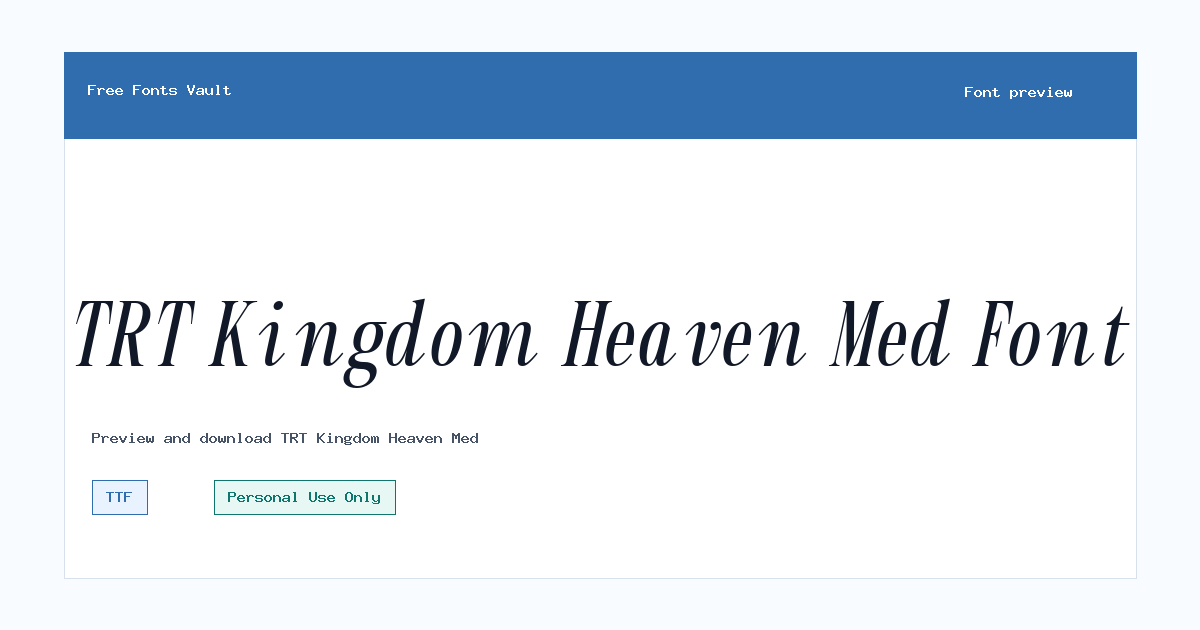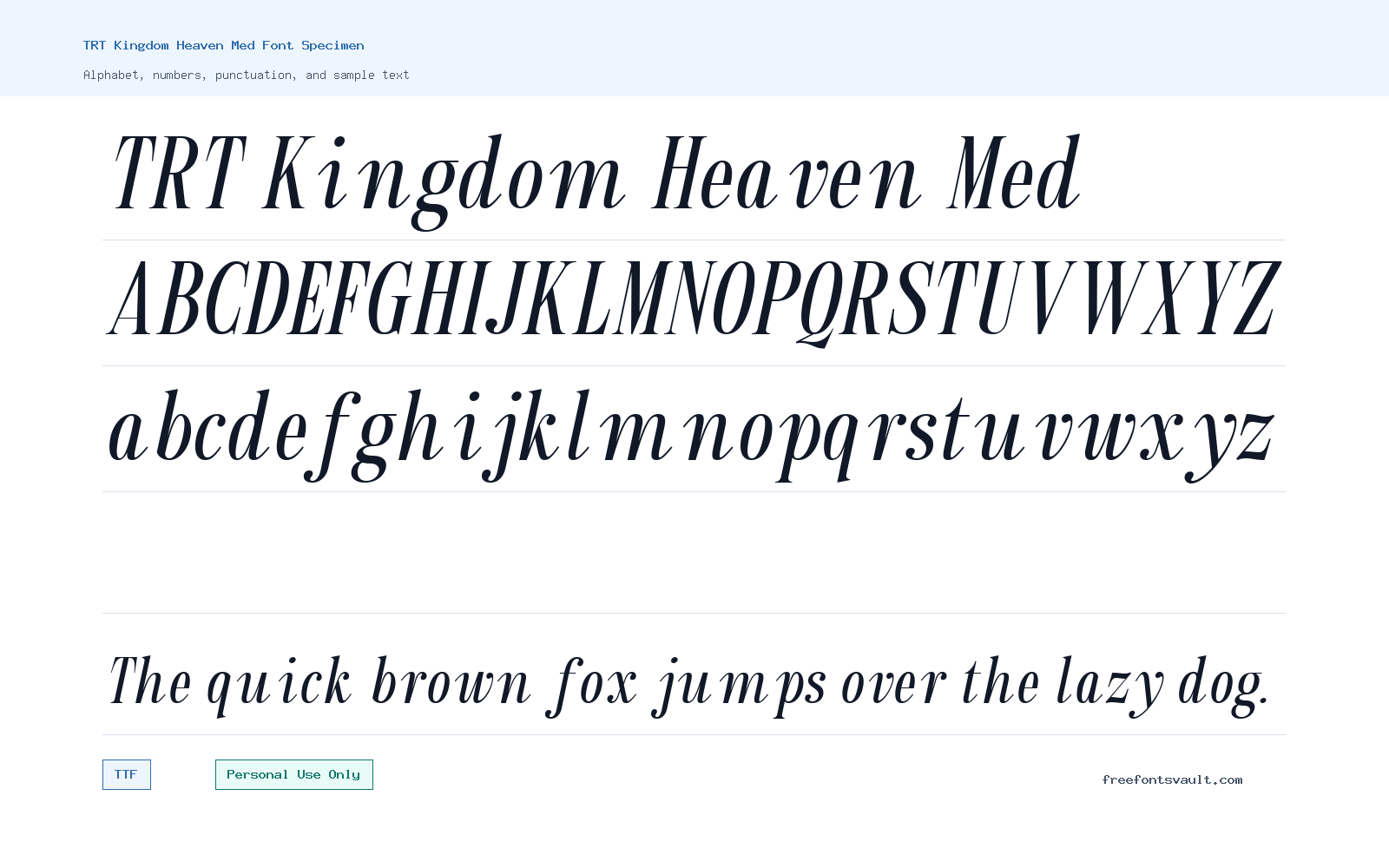
TRT Kingdom Heaven Med
TRT Kingdom Heaven Med font.
TRT Kingdom Heaven Med is a medium-weight style from the TRT Kingdom Heaven serif family. It is a personal-use demo font intended for previewing the look of the family in headings, display text, and short design samples before using it in a finished project.
About TRT Kingdom Heaven Med
TRT Kingdom Heaven Med has the kind of serif structure that works best when the letters have room to show their shape. The medium weight gives the text more presence than a light style without becoming too heavy for elegant title work. It is a good choice to test when you want a formal, decorative serif feeling for names, invitations, labels, editorial graphics, quotes, or other short pieces of text where the font itself is part of the visual style.
- Medium-weight serif style from the TRT Kingdom Heaven family for display-focused text.
- Useful for short text where letter shape, spacing, and decorative character matter more than long-form readability.
- Logo drafts and brand concept mockups for personal testing
- Wedding, event, and invitation-style headings
- Quote graphics, posters, and social media title cards
- Packaging concepts, labels, and editorial display layouts
- Font pairing experiments with simpler body text fonts
Use TRT Kingdom Heaven Med where the font can stay large enough to be read comfortably. Test headlines at several sizes, check the spacing between capital letters, and avoid using it for long paragraphs unless the preview proves it stays readable. Pair it with a quiet supporting font so the serif style remains the focus instead of competing with another decorative typeface.
Is TRT Kingdom Heaven Med a separate font family?
It should be understood as a medium style within the TRT Kingdom Heaven family, not as an unrelated family. Use it when you want the family’s serif look with a medium-weight presence.
What kinds of projects should I try it in?
Try it in short display settings such as titles, invitations, quote graphics, posters, packaging mockups, and logo drafts. It is better suited to brief text than dense body copy.